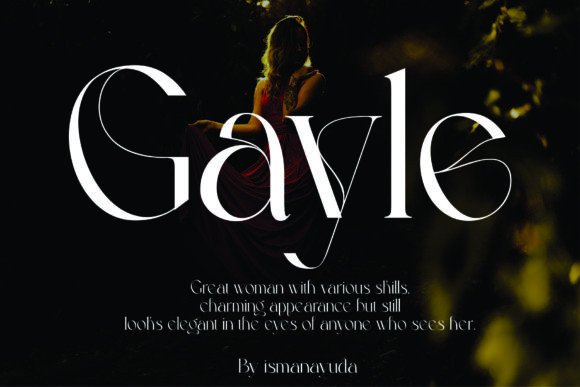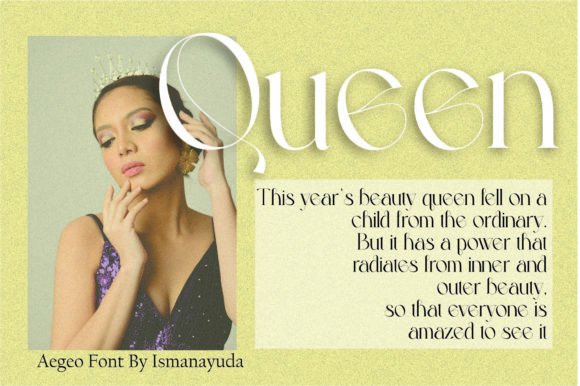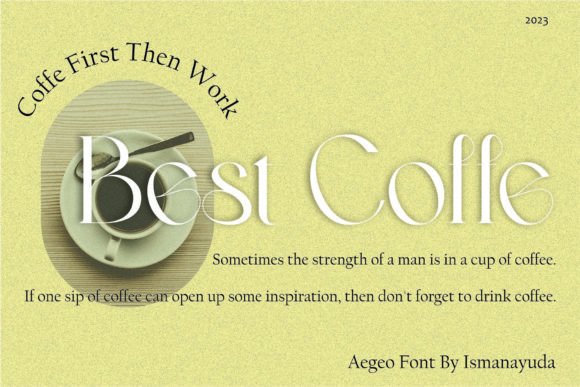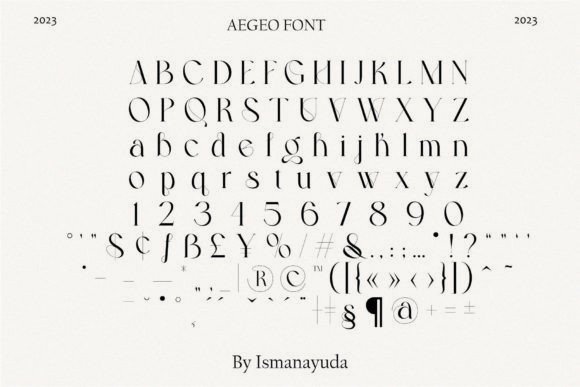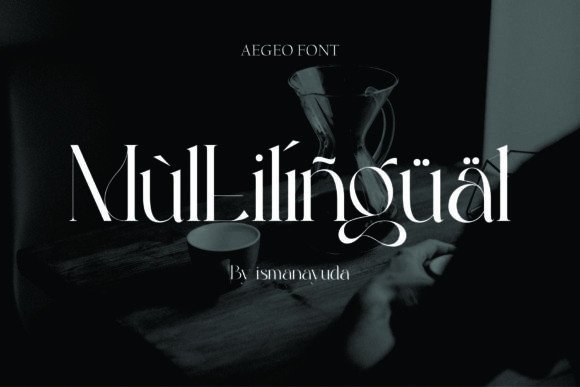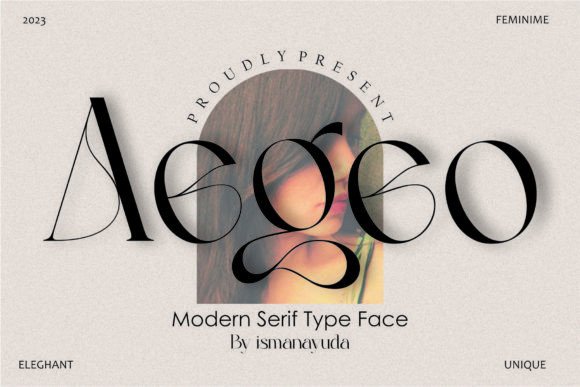
Aegeo Font: Elevate Your Designs with Sophistication and Elegance
In the world of typography, a font can make or break the aesthetic of a design. For those seeking a touch of sophistication and elegance, the Aegeo font is an excellent choice. This chic and refined serif font is designed to bring a sense of grace and beauty to any project, making it perfect for high-end brands and editorial designs.
The Characteristics of Aegeo Font
Aegeo is a masterclass in classic design, with slender and delicate strokes that exude refinement. Its serif structure adds a touch of tradition, while its clean lines and precise curves bring a sense of modernity. This font is designed to be versatile, making it suitable for a wide range of applications, from print to digital media.
Why Choose Aegeo Font?
There are several reasons why Aegeo font stands out from the crowd:
• Elegance and Sophistication: Aegeo’s classic design and refined strokes make it perfect for high-end brands and editorial designs that require a touch of sophistication.
• Versatility: This font is designed to work seamlessly across various mediums, including print and digital media.
• Readability: Aegeo’s clear and precise structure ensures excellent readability, making it ideal for body text and headlines.
• Uniqueness: While Aegeo is rooted in classic design, its subtle nuances and refined features set it apart from more traditional serif fonts.
Using Aegeo Font in Design Projects
Aegeo font can elevate a wide range of design projects, including:
• Branding and Identity: Aegeo’s sophisticated and elegant design makes it perfect for high-end brands looking to establish a refined visual identity.
• Editorial Design: This font is well-suited for editorial designs, such as magazines, newspapers, and books, where a touch of sophistication is required.
• Print Design: Aegeo font can add a touch of elegance to various print materials, including business cards, brochures, and posters.
• Digital Media: This font is optimized for digital use, making it perfect for websites, social media graphics, and digital advertising.
Tips for Pairing Aegeo Font with Other Fonts
Pairing Aegeo font with other fonts can create a unique and visually appealing typography scheme. Here are some tips:
• Combine with Sans-Serif Fonts: Pairing Aegeo with sans-serif fonts, such as Arial or Helvetica, can create a striking contrast and add visual interest to your design.
• Match with Script Fonts: Aegeo can be paired with elegant script fonts, such as Pacifico or Great Vibes, to create a sophisticated and refined typography scheme.
• Experiment with Monospaced Fonts: Combining Aegeo with monospaced fonts, such as Courier or Monaco, can add a touch of modernity and create a unique visual identity.
Aegeo font is a versatile and elegant serif font that can elevate a wide range of design projects. Its classic design, refined strokes, and excellent readability make it perfect for high-end brands and editorial designs. Whether you’re a designer or a crafter, Aegeo font is an excellent choice for adding a touch of sophistication and elegance to your work.